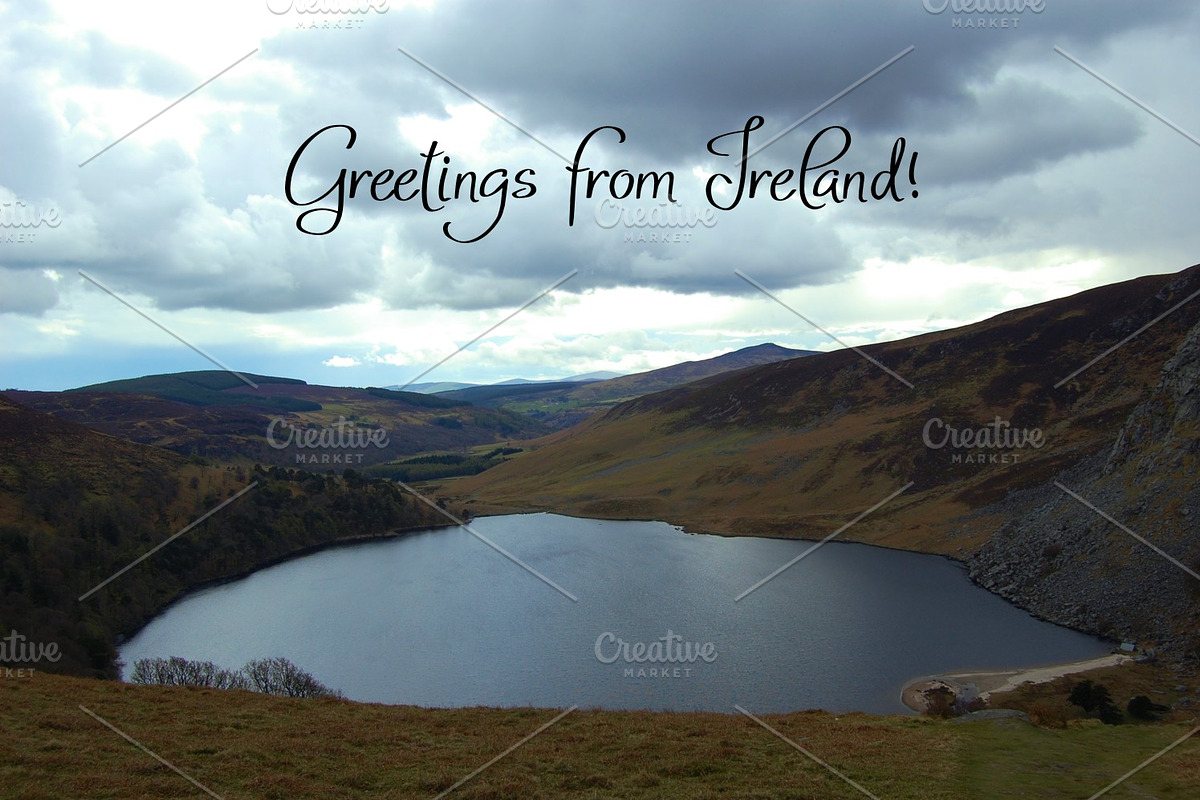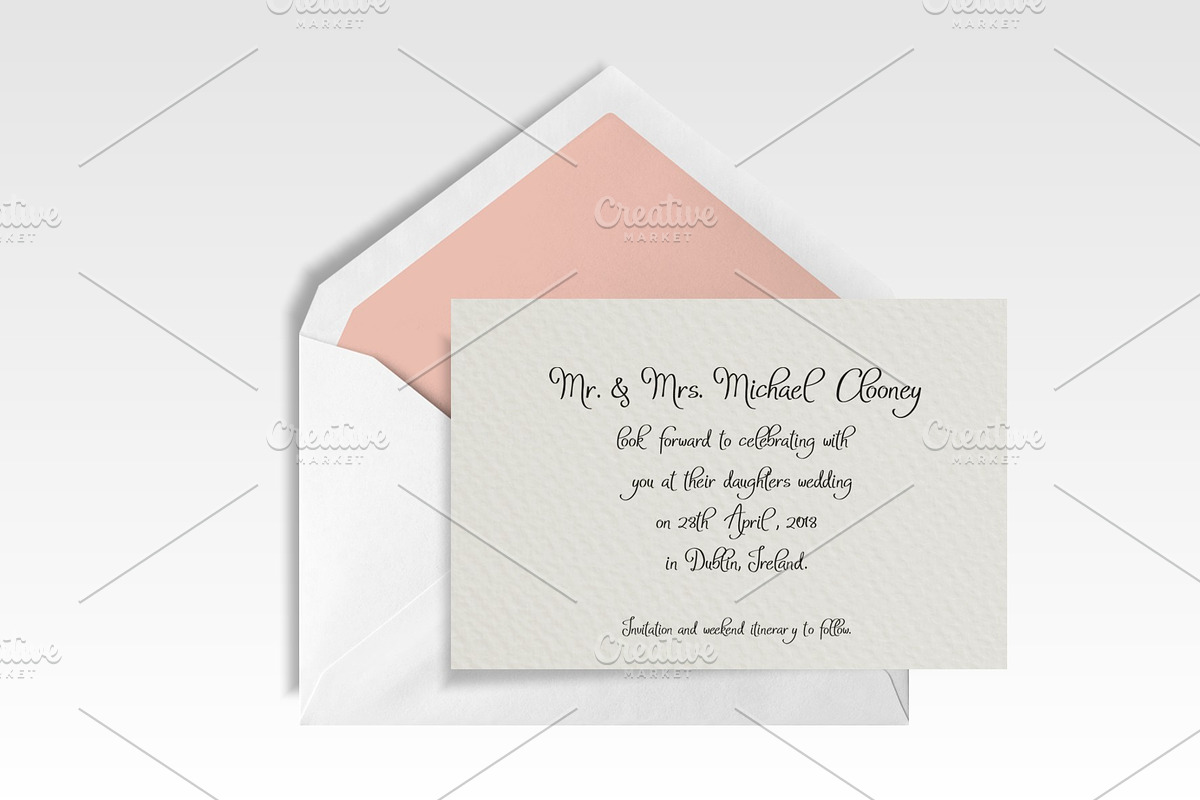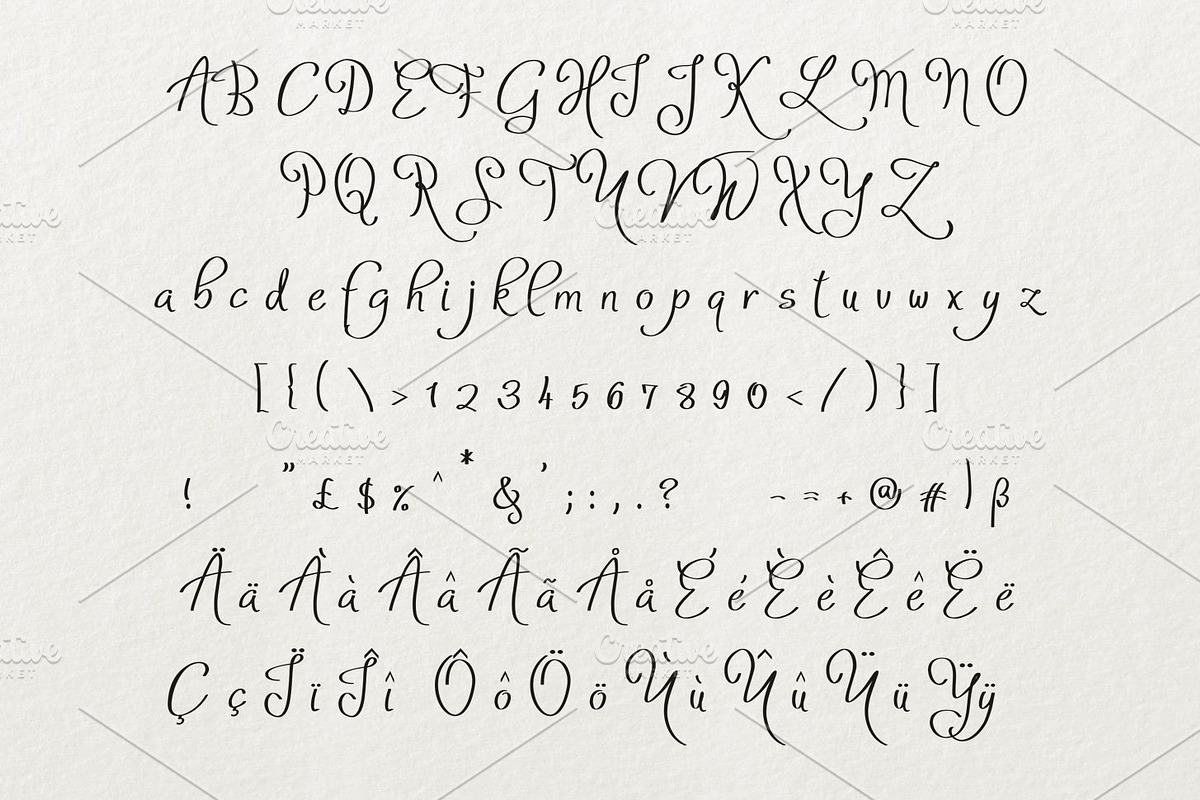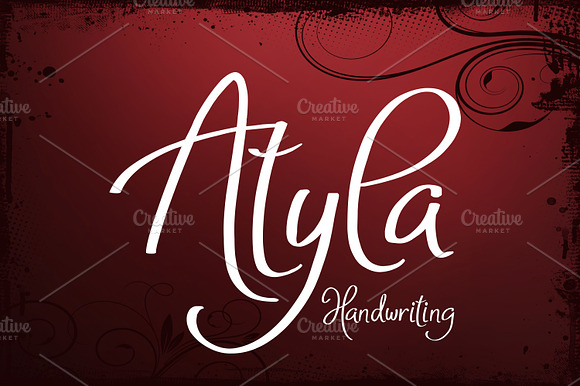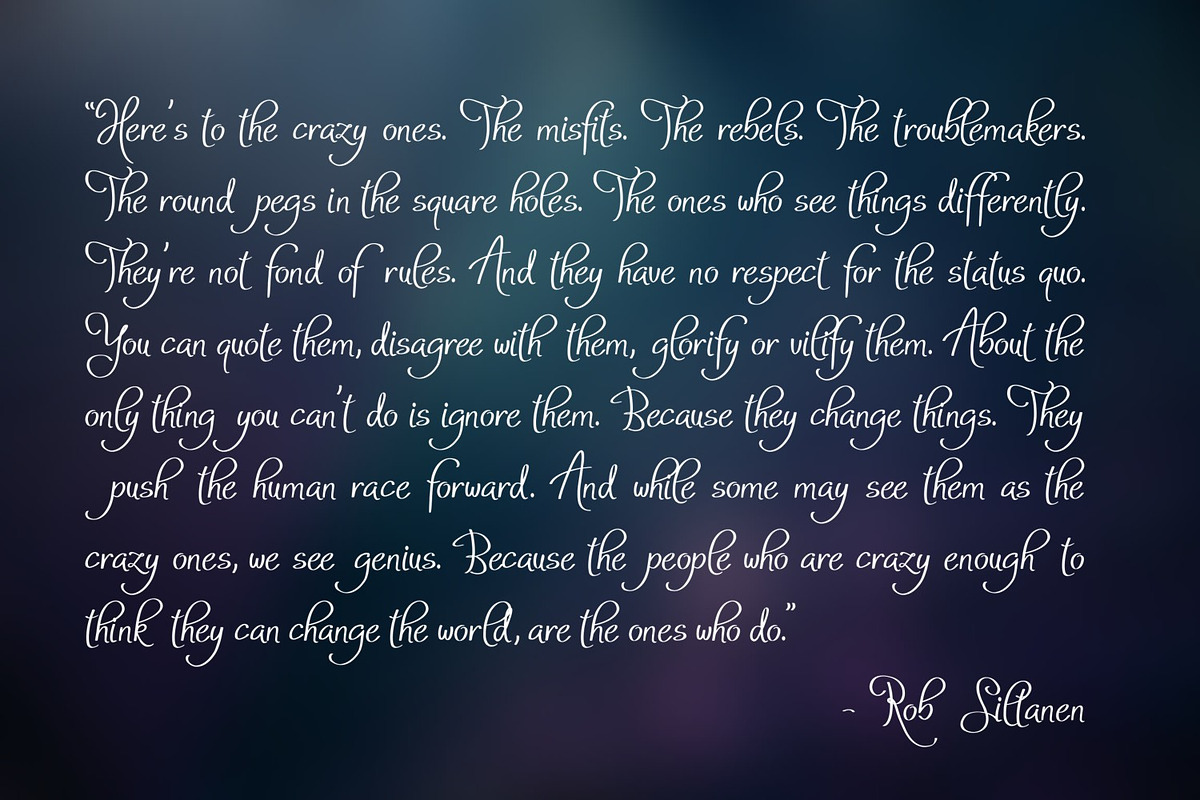
Atyla
Introducing Atyla typeface. Great for wedding invitations or other stationeries.
Atyla by Digital Typeface Studio fits naturally into Branding, posters, packaging, typography.